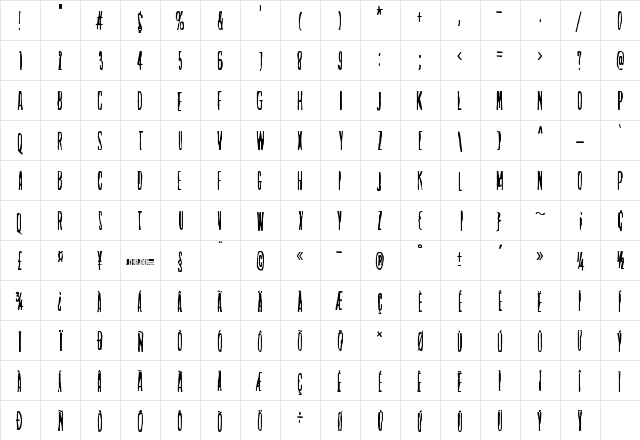
On the horizon Regular
| Foundry | junkohanhero |
| Designer | junkohanhero |
Design Context for On the horizon Typeface
On the horizon is a composed and adaptable typeface that performs quietly and consistently across a wide range of design contexts.